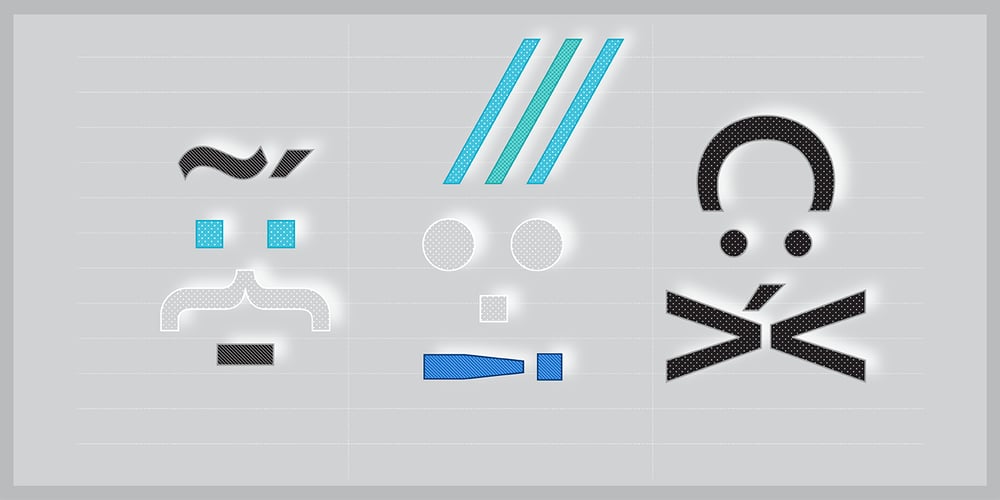
TextFace Type Font Family was designed by Jeremy Johnson and published by Forme Type. TextFace Type contains 3 styles and family package options. The idea for this font family, derived from SMS text message faces (Emojis) and found photographs of faces collected over the last ten years. The concept for this project was to a create text-face characters using only the glyphes found in a standard version of a Sans Serif typeface. There are 36 different Textfaces. Available in three weights, Regular, Bold and a Stencil version.